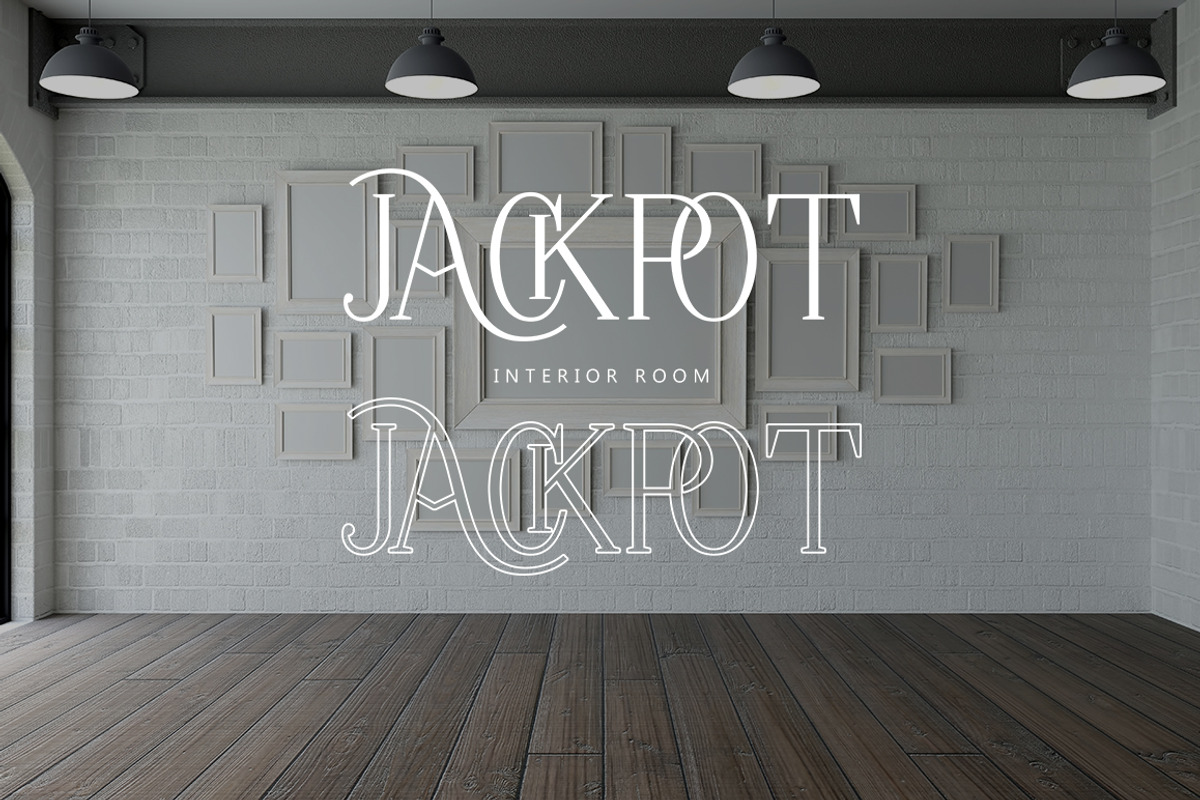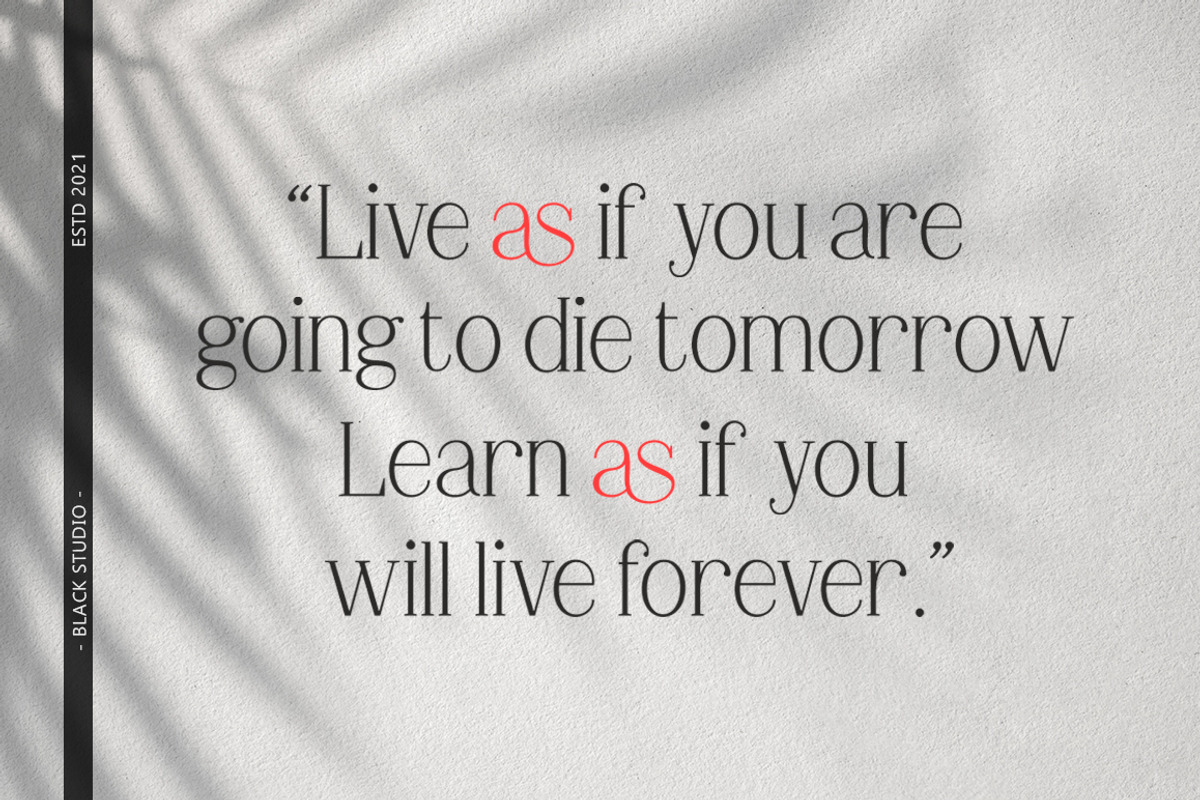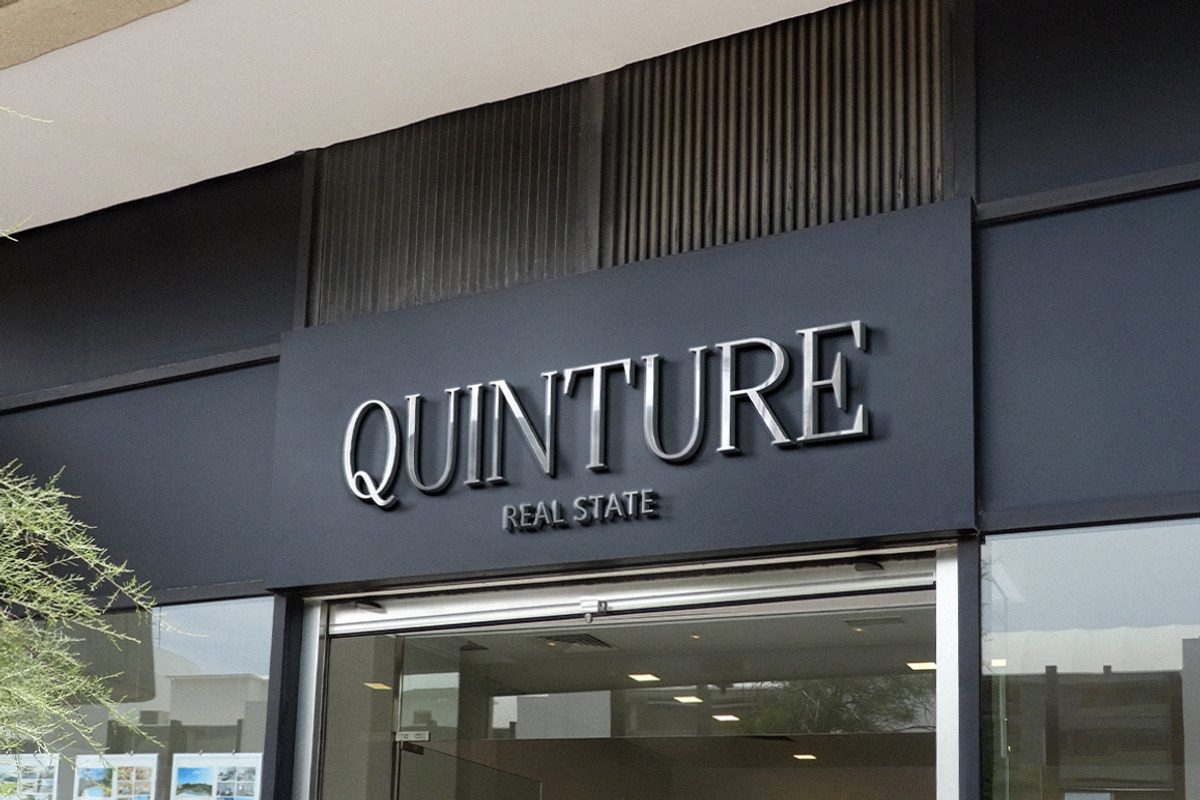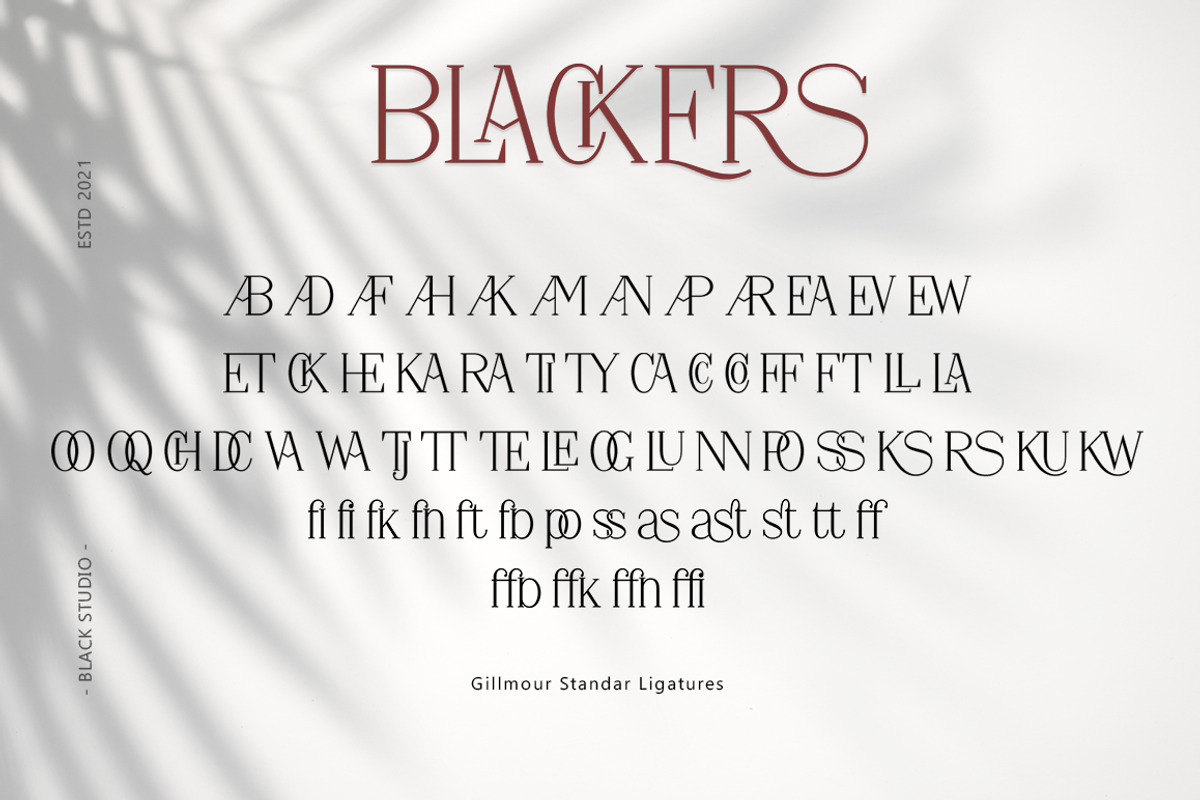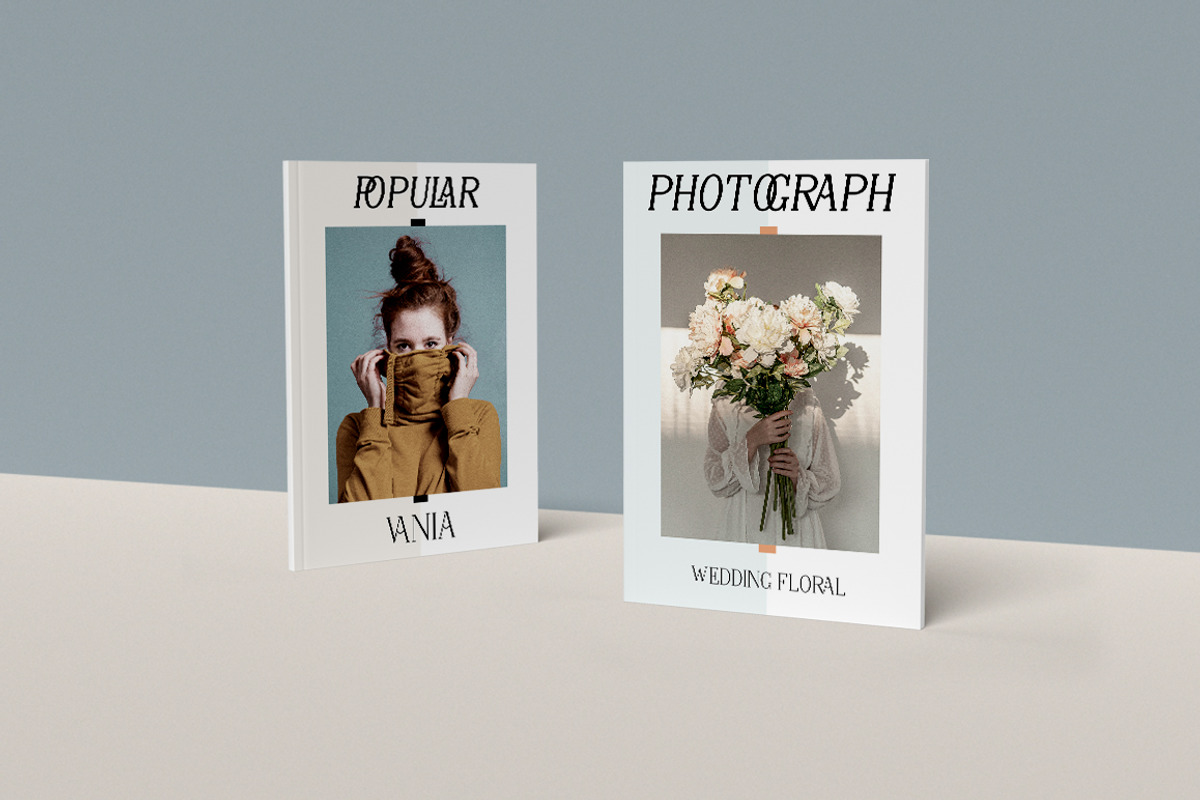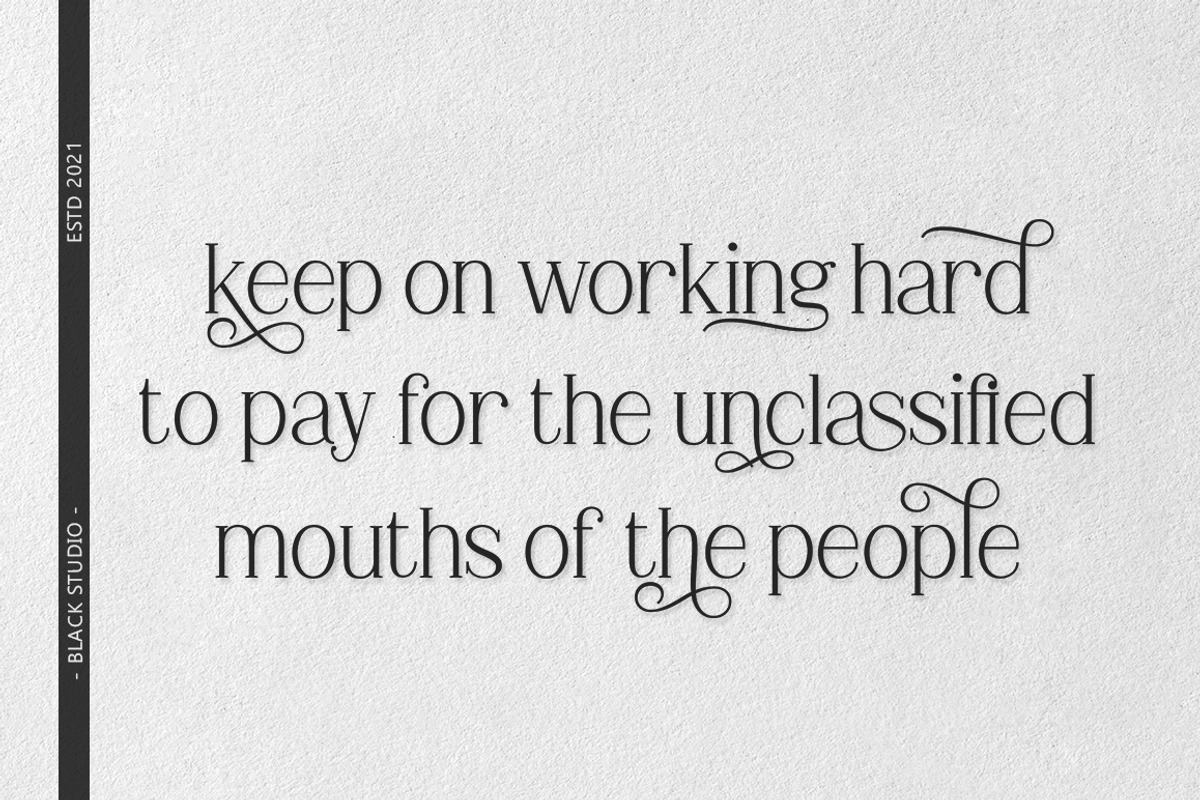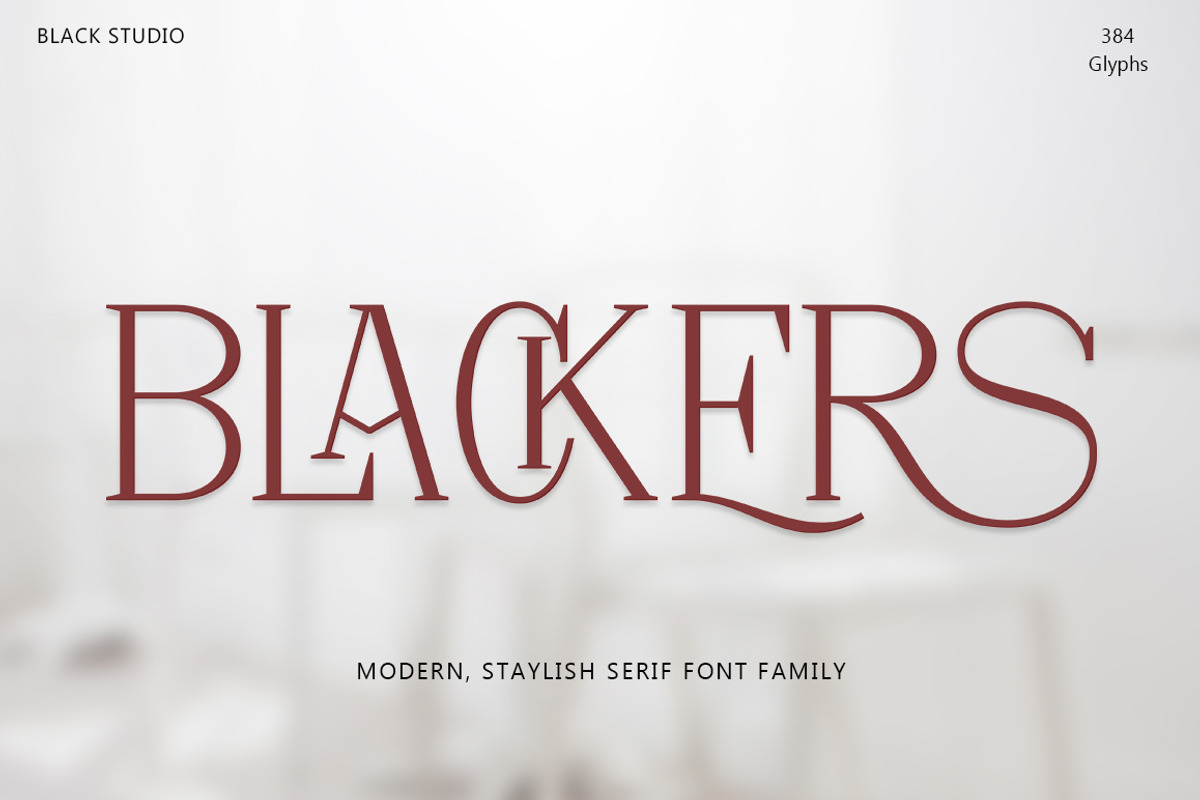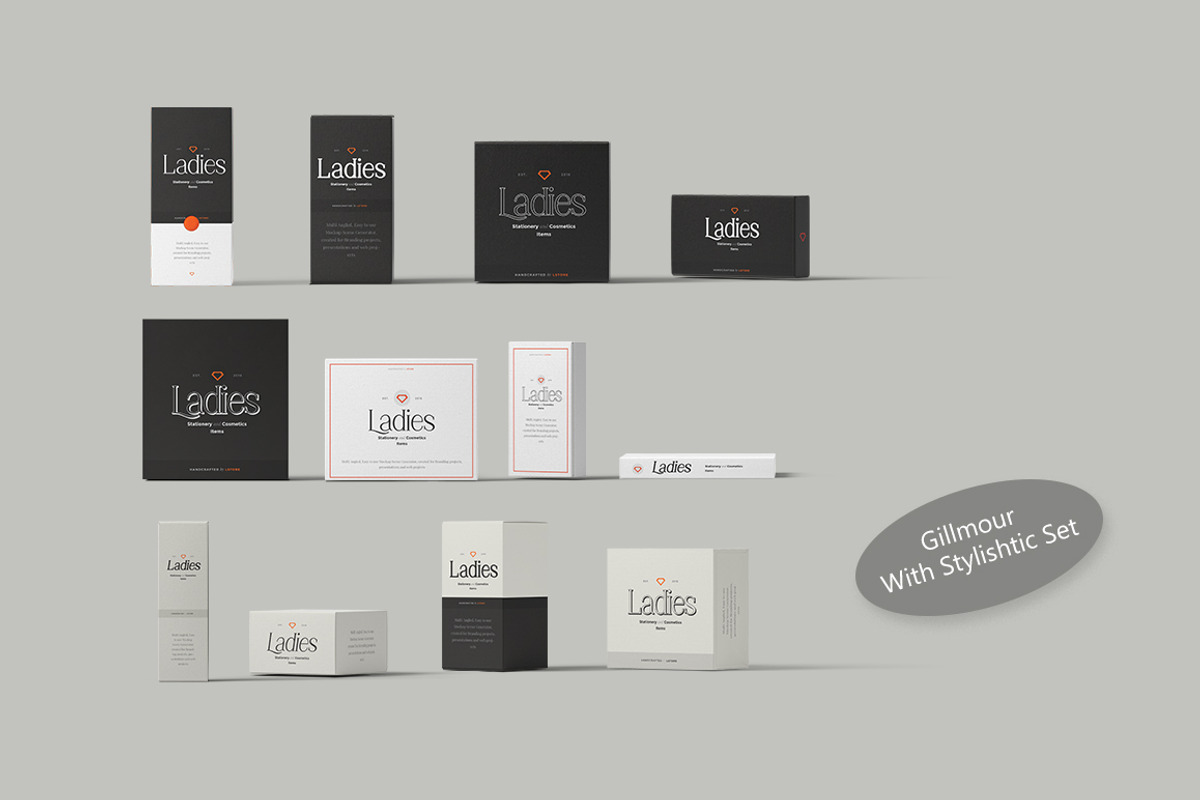
Blackers
Blackers Serif is a modern vintage serif font packaged in a modern and classy style, complete with access to your OpenType features to access a large selection of alternative letters and ligatures, the choice of letters you like from various upper and lowercase letters for a luxurious and elegant look.
A unique, fun and versatile series of serifs with 60 ligatures and 101 alternatives to perfect any design you like. This font is perfect for branding projects, logo design, clothing branding, packaging, magazine titles, advertisements, t-shirts, postcards and more.